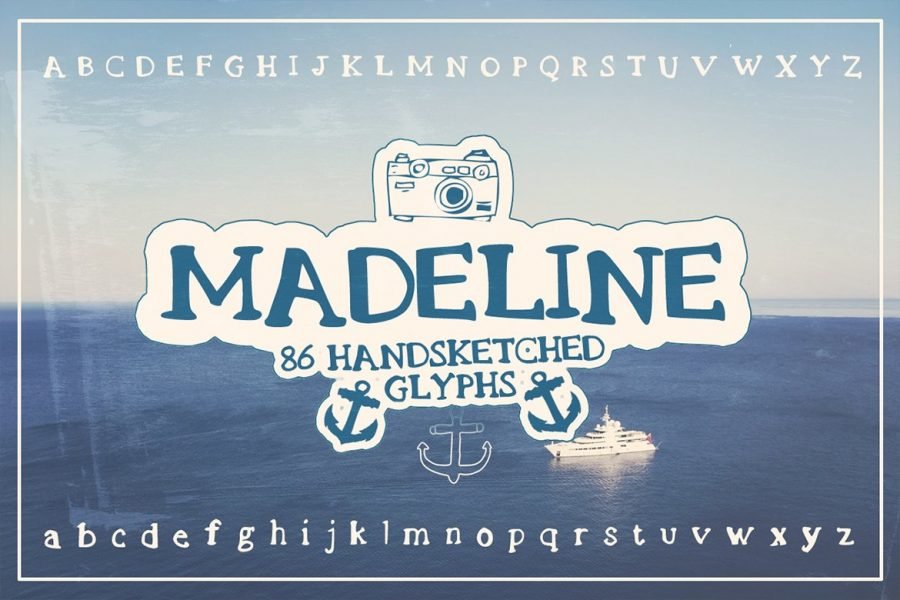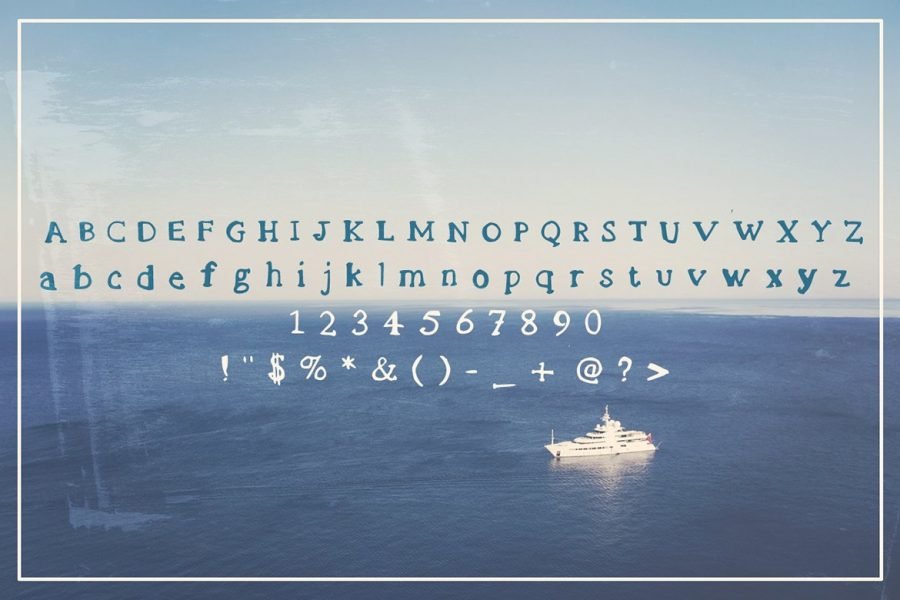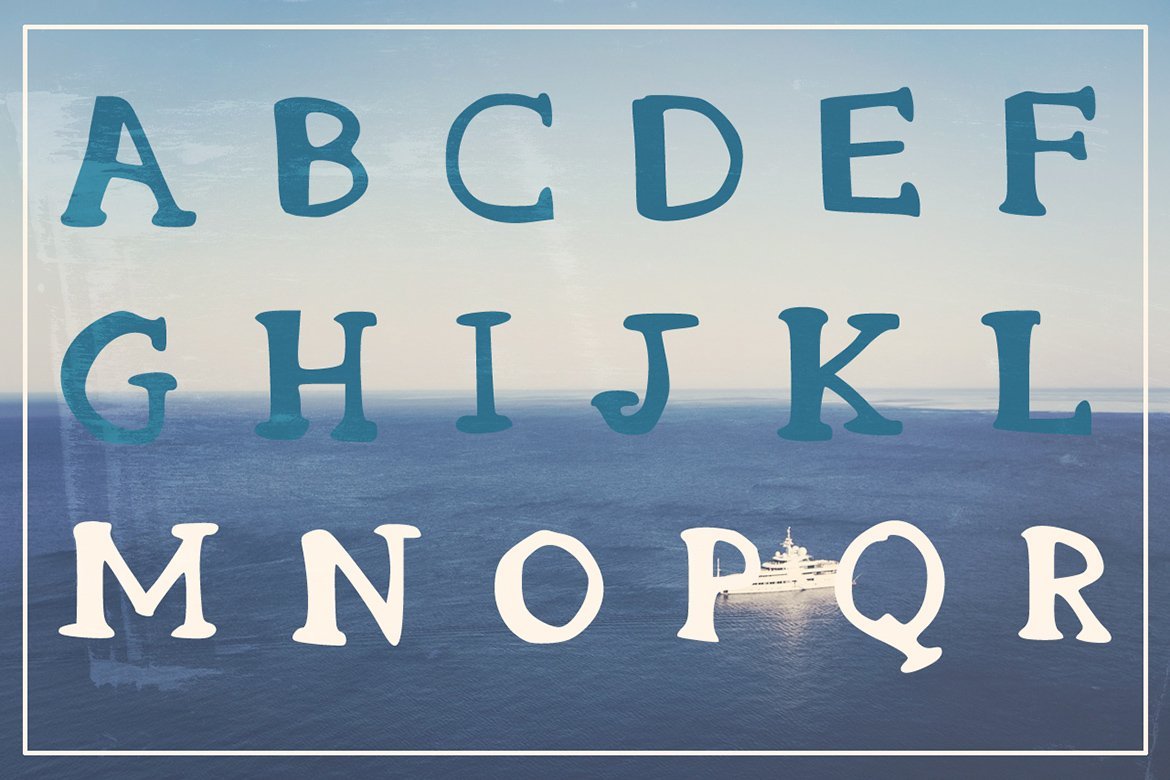
Introducing the Madeline Handsketched Typeface! A beautifully handcrafted, cute Font with oodles of character and charisma!
This Typeface includes 77 Handmade glyphs, and would be a perfect addition to anyone’s Font Collection. Ideally you should use this font for quirky, unique typographic artwork, where the style of this typeface really shines.